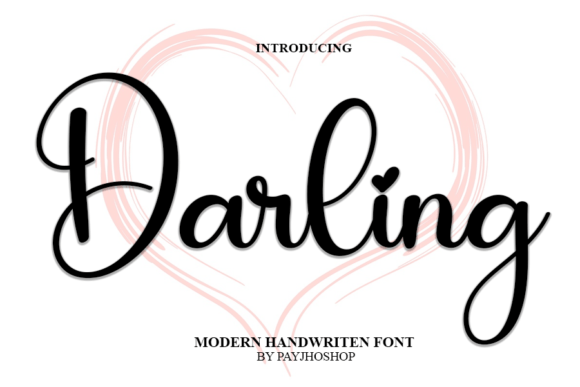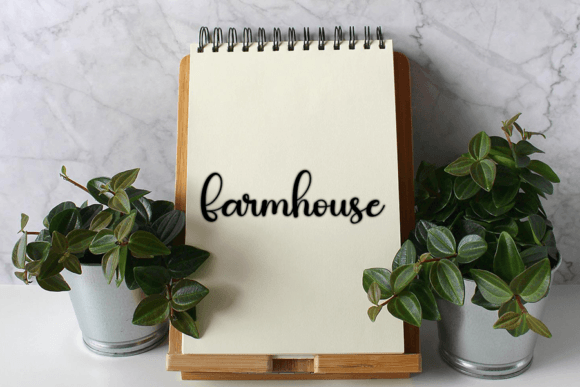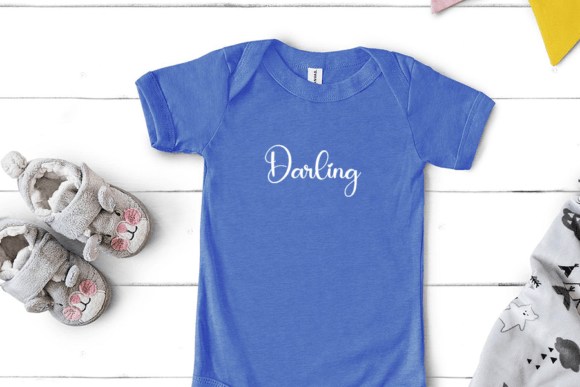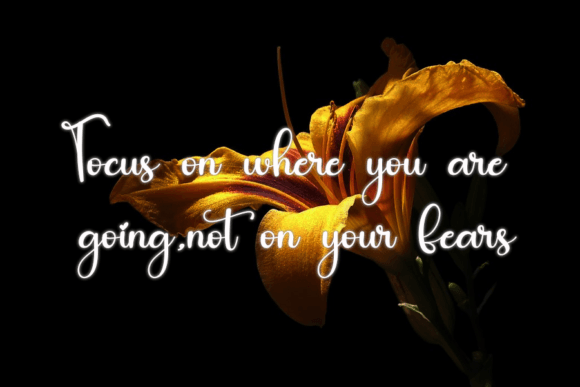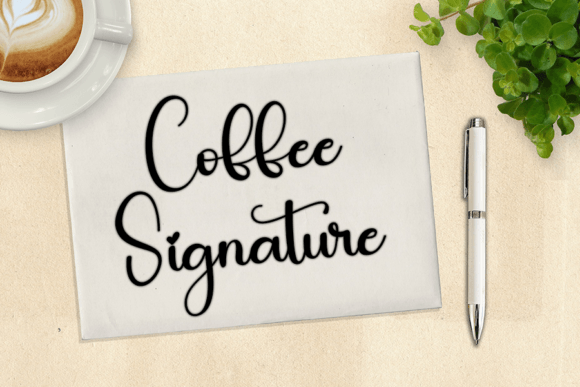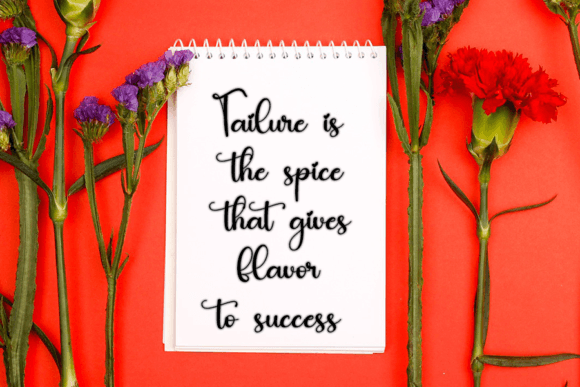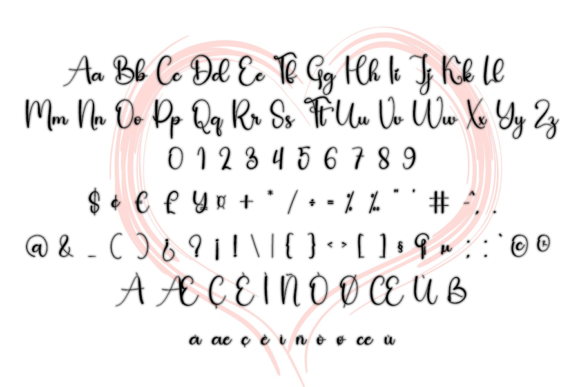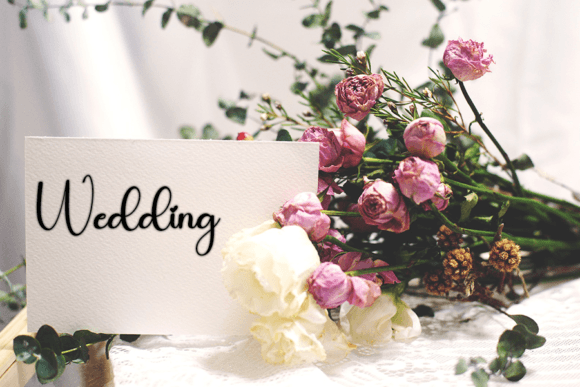
Darling Font
About Darling Font
“Darling” is a cute and utterly adorable handwritten script font. It exudes a dainty and joyful charm, making it an ideal choice for various design projects that require a romantic and personalized touch. This font has a unique and endearing quality that can enhance a wide range of creative endeavors.
The key characteristics of “Darling” lie in its cuteness and adorability. Its script style adds a touch of elegance, while its handwritten quality brings a sense of authenticity and personalization to your designs. Whether you’re working on wedding invitations, greeting cards, or any other project that aims to convey romantic sentiments, “Darling” can be the perfect choice.
Visualize using “Darling” to craft wedding invitations that reflect the sweetness of love or designing heartfelt cards that convey warm wishes and affection. Consider incorporating this font into personalized gifts or special occasions where its charming and romantic vibe can shine.
In conclusion, “Darling” is not just a font; it’s a design asset that brings a delightful and heartwarming touch to your creative work. Its cuteness and handwritten script style make it an excellent choice for projects where romance and personalization are key. Embrace “Darling” as a font that adds a unique and heartfelt dimension to your designs, making them even more special and memorable.